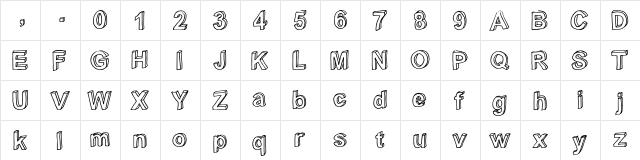
C rial Regular
| Foundry | J O E B O B graphics |
| Designer | J O E B O B graphics |
Design Context for C rial Typeface
C rial takes a measured approach to typography — its balanced proportions and neutral character make it a reliable workhorse for both digital and print work.